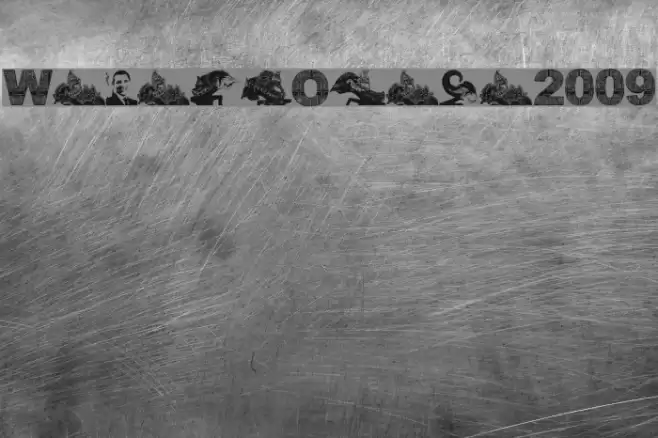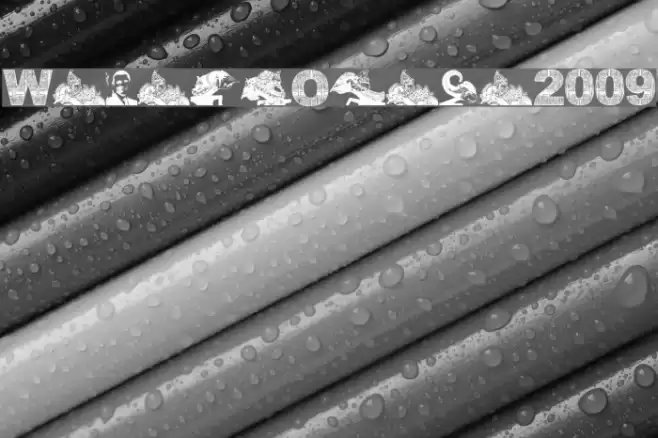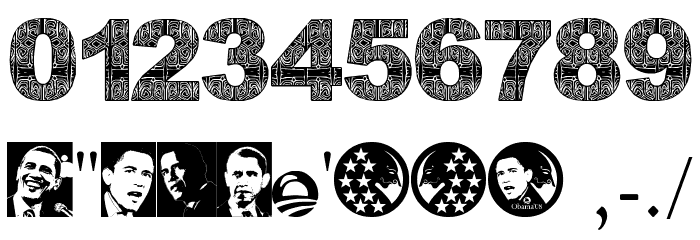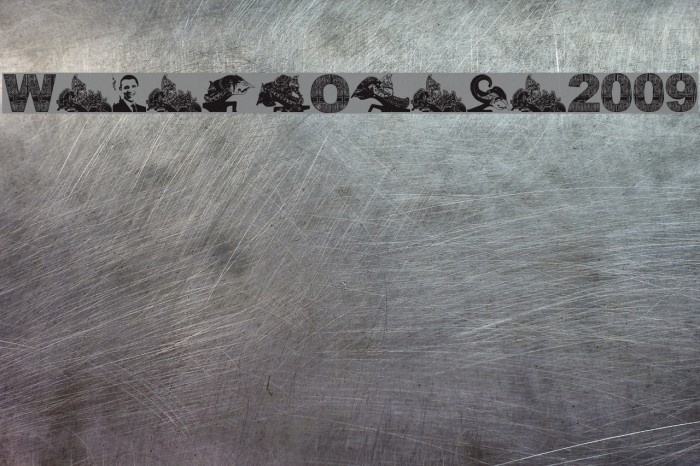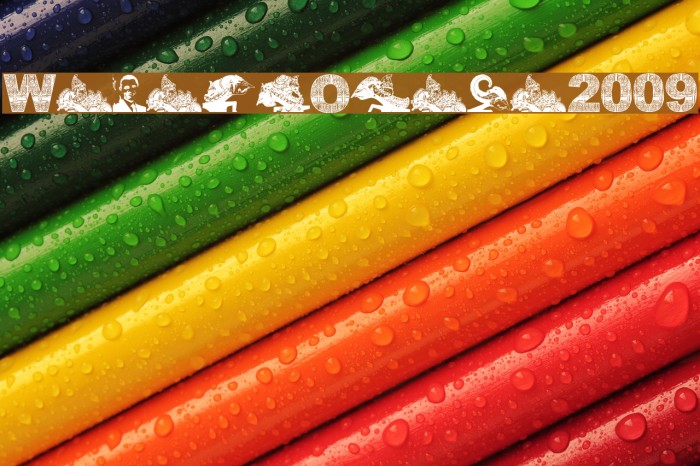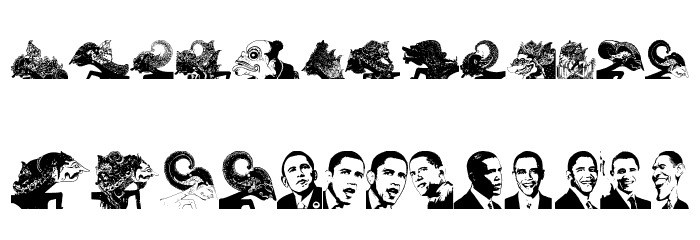
WayangObama2009 Font
WayangObama2009 Description
This font is a highly decorative and thematic typeface that incorporates intricate patterns and cultural motifs within each character. The uppercase letters are bold and filled with detailed designs reminiscent of traditional art, creating a visually striking effect. The numbers follow the same pattern, maintaining consistency across the typeface. The special characters include unique symbols and portraits, adding a personalized touch to the font. This typeface is not only a functional set of characters but also a piece of art, with each letter and number serving as a canvas for elaborate designs.
A decorative typeface featuring intricate patterns and cultural motifs within each character from Uncategorized fonts.
- Proposed Projects: Ideal for cultural projects, themed events, artistic posters, and any design requiring a bold, decorative touch.
- Use Case: Logos, Posters, Artistic Projects